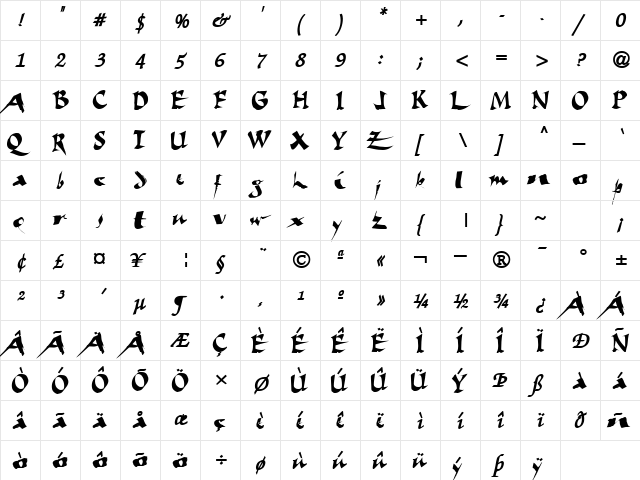
Gift Regular
Design Context for Gift Typeface
Gift is a composed and adaptable typeface that performs quietly and consistently across a wide range of design contexts.